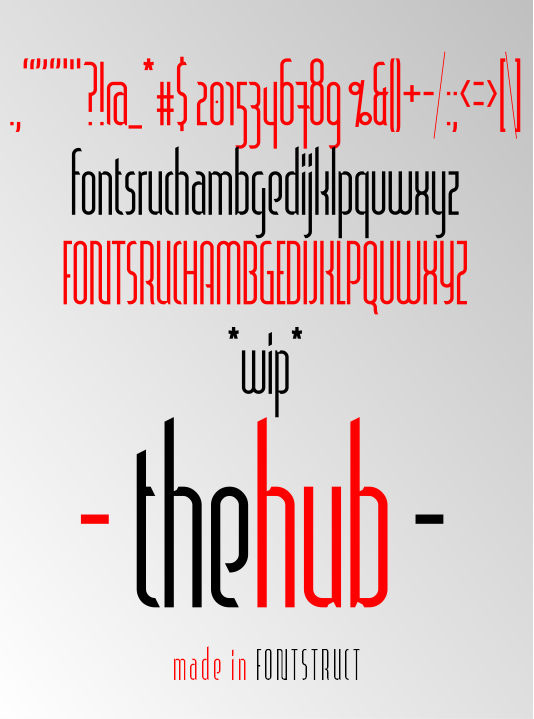
Congratulations! FontStruct Staff have deemed your FontStruction worthy of special mention. “theHub” is now a Top Pick.
Congratulations on the TP, the font is beautifully balanced. I love the different levels, they are an unusual feature.
Very elegant - love the 'g'.
This is lovely.